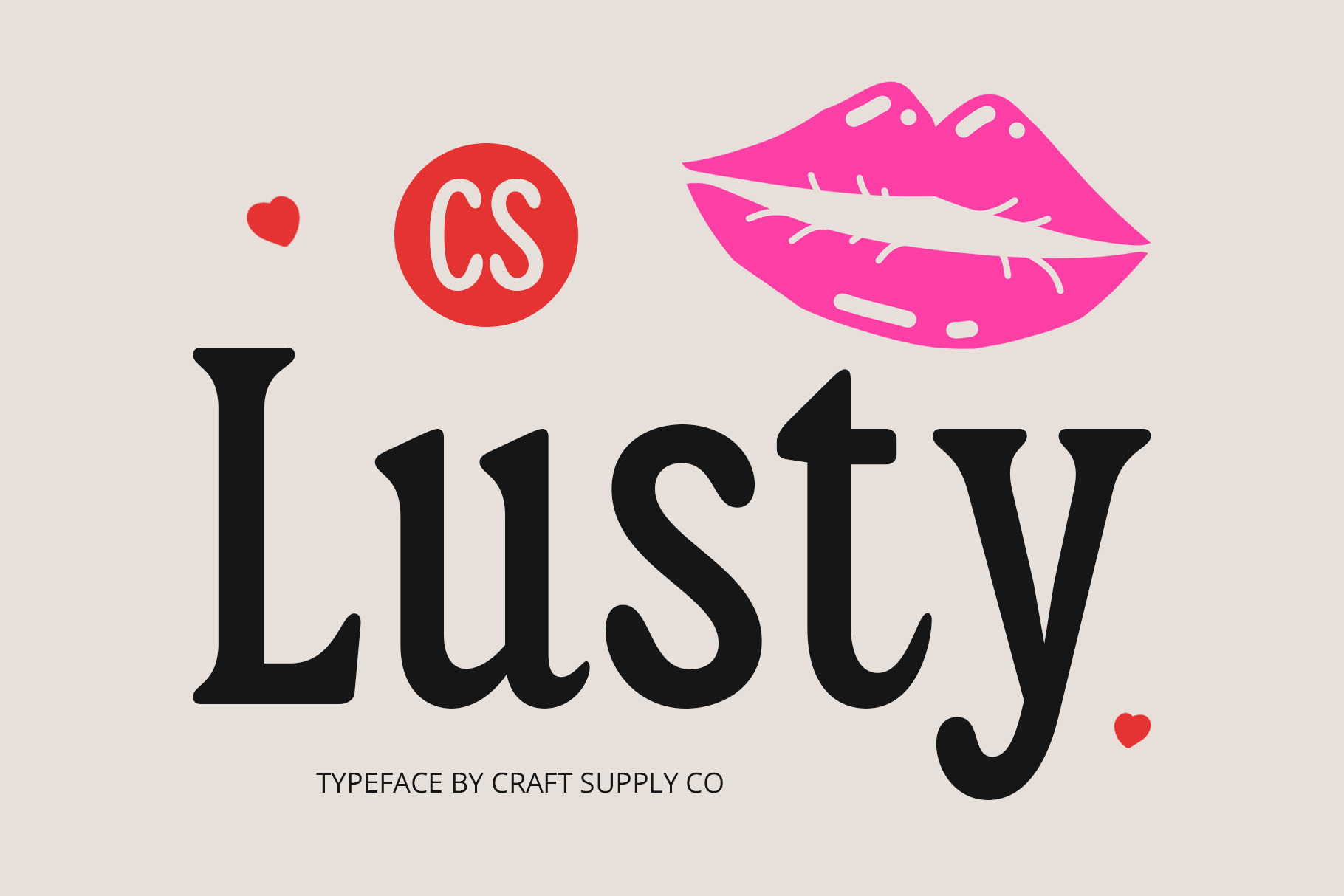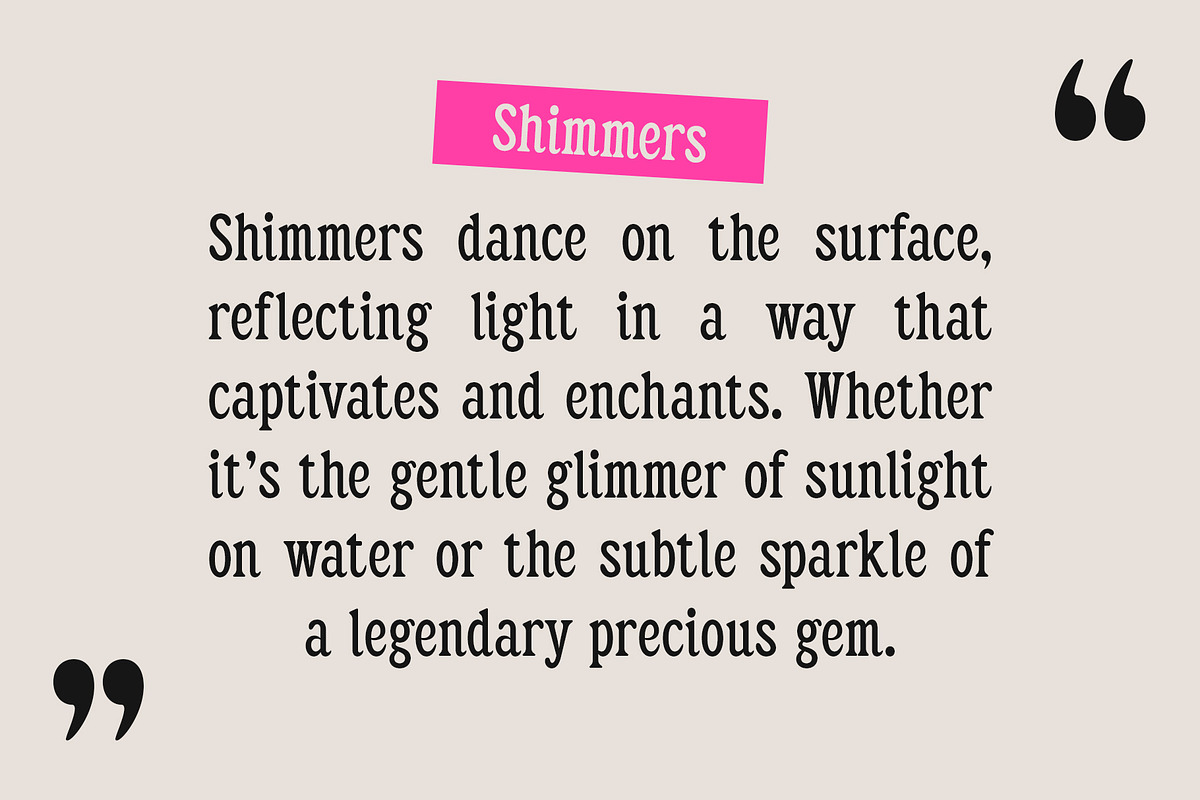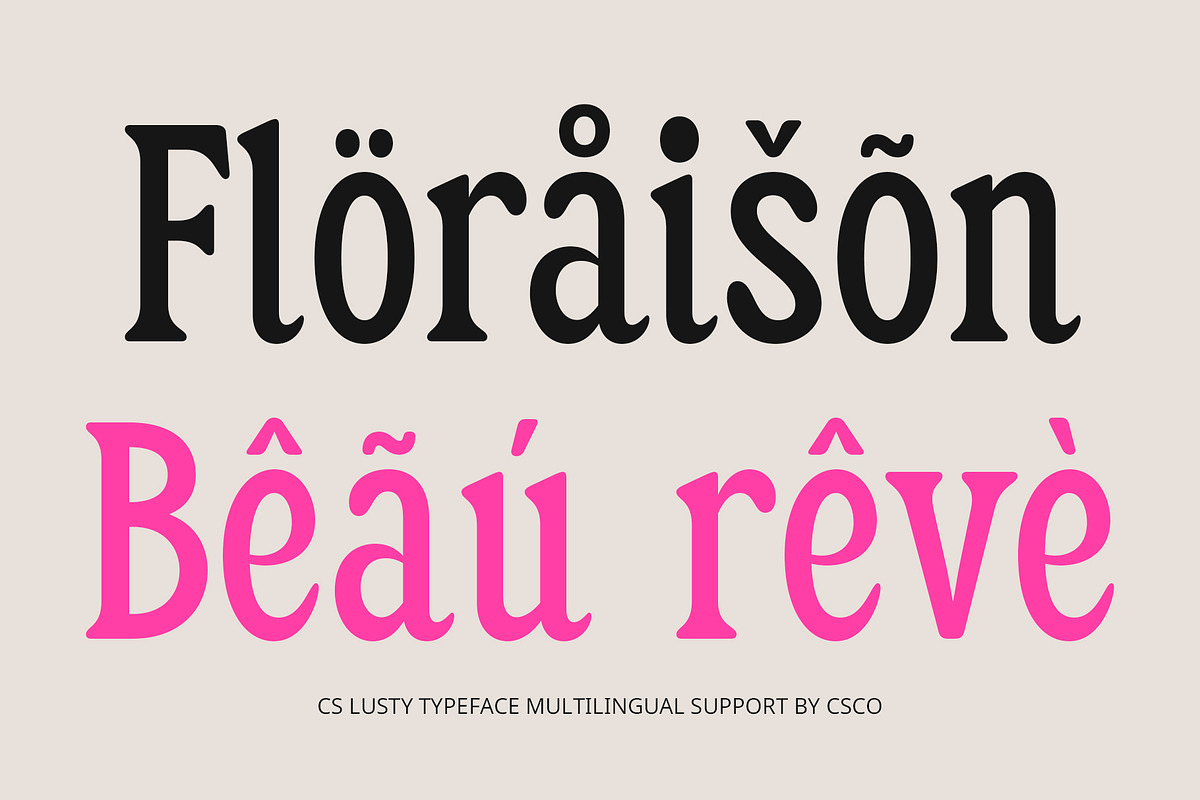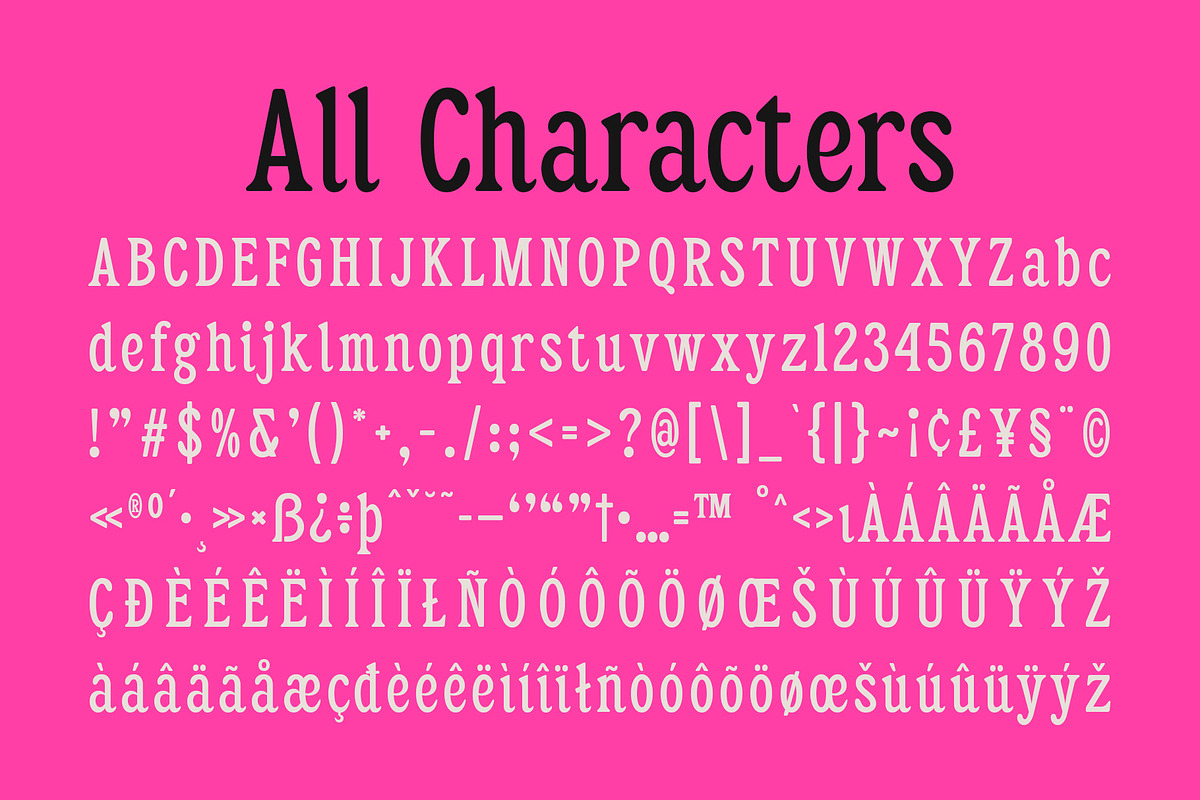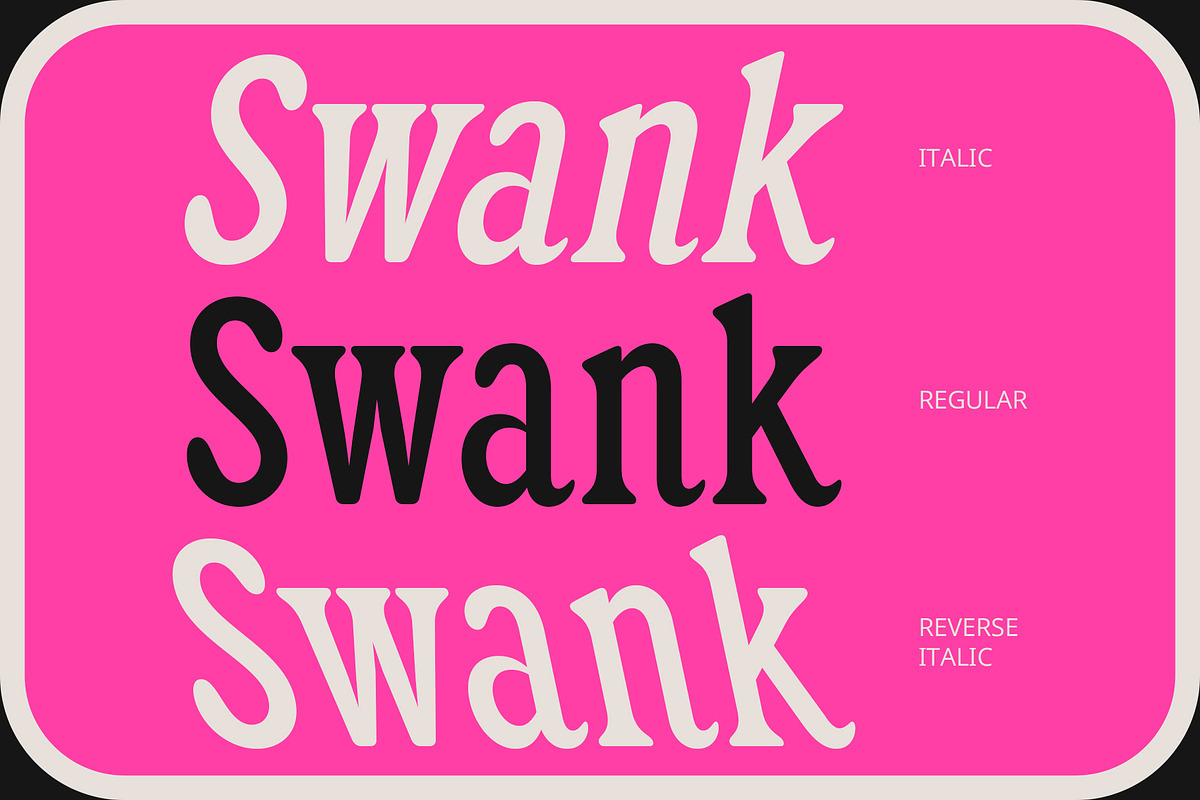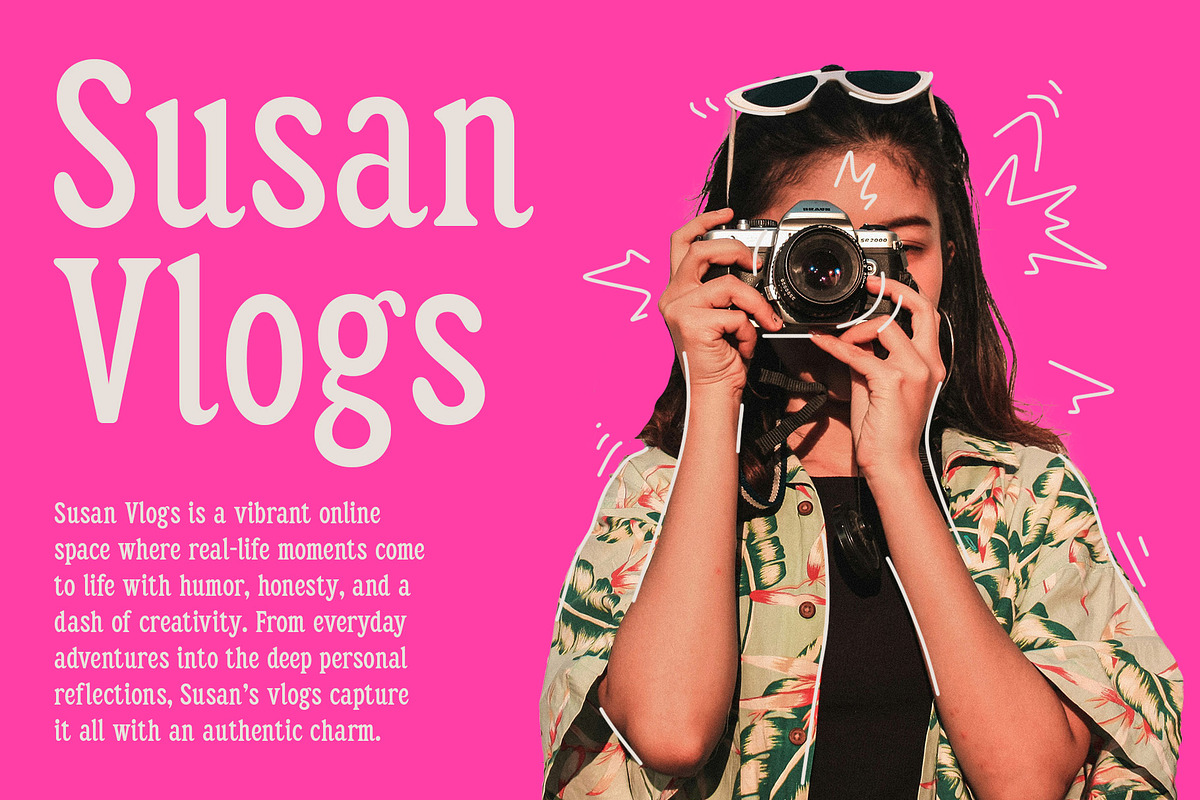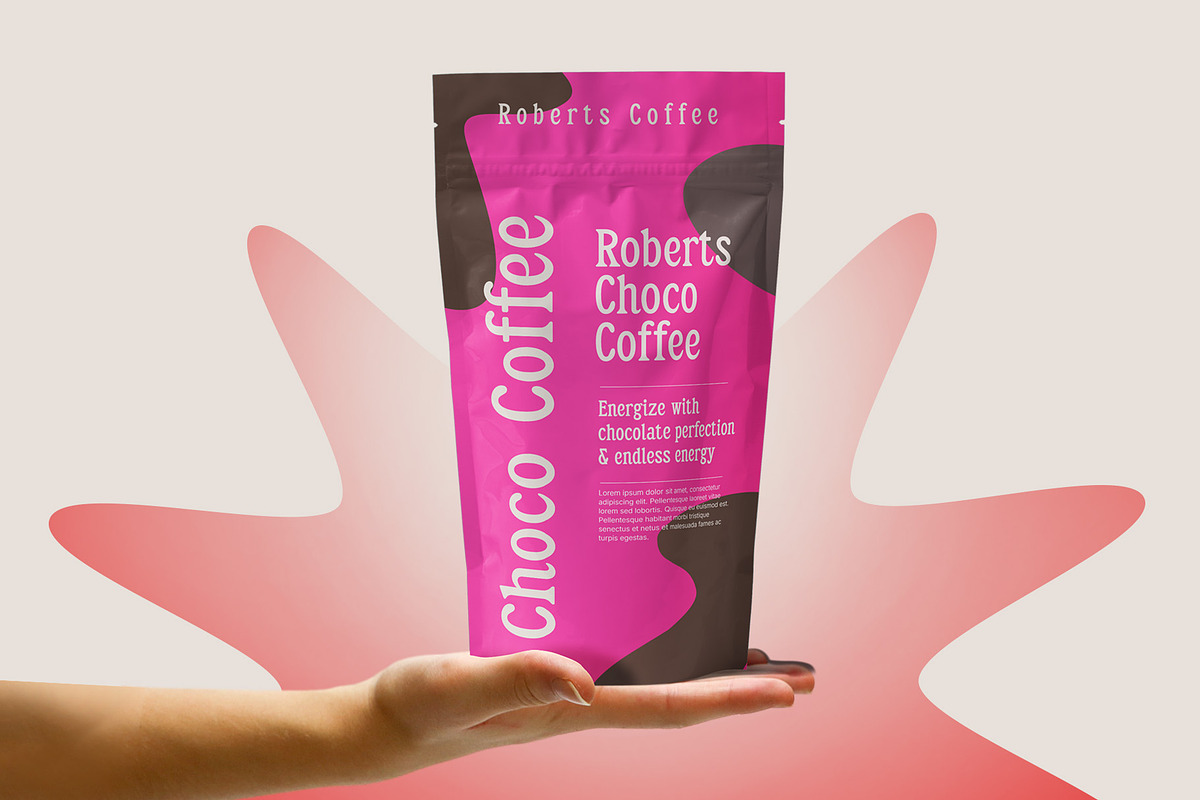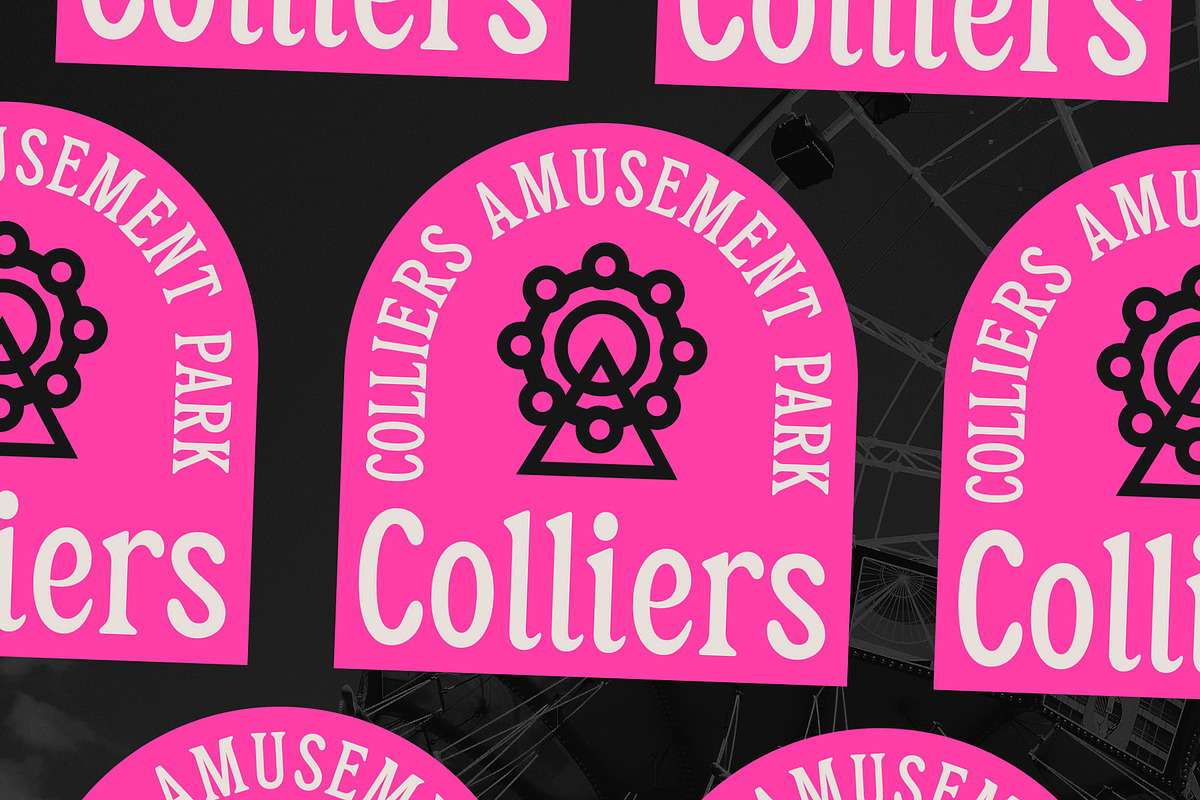
CS Lusty – Serif Font
CS Lusty – Serif Font: Elegance and Femininity Redefined
Soft Rounded Serif with Timeless Charm CS Lusty is a rounded serif font that beautifully embodies soft elegance and refined beauty. With its gracefully flowing curves and smooth letterforms, this font radiates a friendly and inviting vibe, making it an exceptional choice for designs that emphasize femininity and grace. The soft, rounded edges create a harmonious balance that draws the eye, ensuring that any text set in this font stands out with a delightful presence.
Friendly Aesthetic for Diverse Applications The rounded characteristics of CS Lusty create a pleasant impression, ideal for a variety of applications. Whether you’re branding beauty products, designing elegant invitations for formal events, or crafting engaging promotional materials, this font’s versatility shines through, allowing it to adapt seamlessly to various contexts. From upscale fashion brands to artisanal crafts, CS Lusty captures the essence of sophistication and charm, making it a go-to choice for designers who wish to leave a lasting impact.
Enhanced Readability with Classic Touches Featuring subtle serifs that enhance readability, CS Lusty combines modern sensibilities with classic elements. Its delicate design ensures clarity and elegance, making it suitable for both print and digital mediums.
- CS Lusty Regular
- CS Lusty Italic
- CS Lusty Reverse Italic